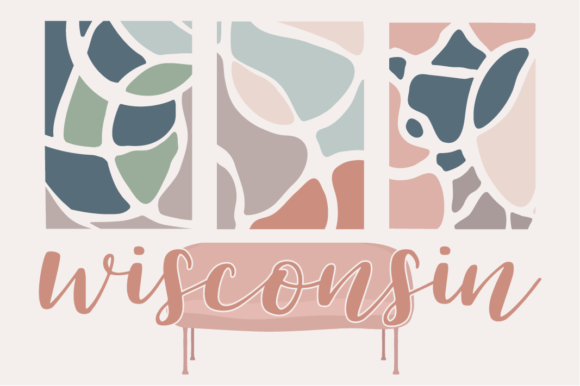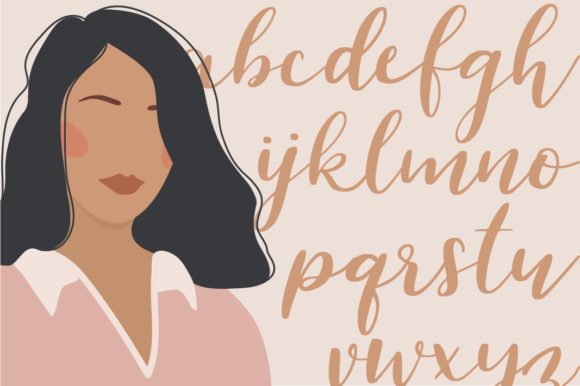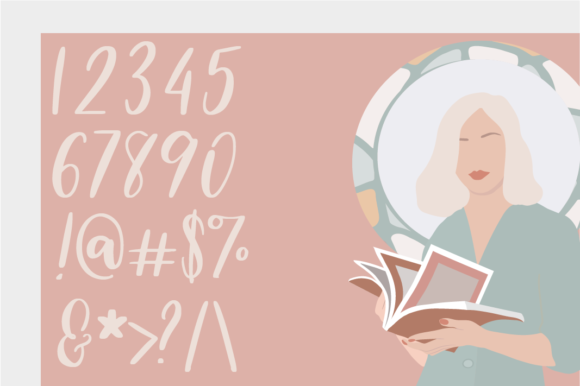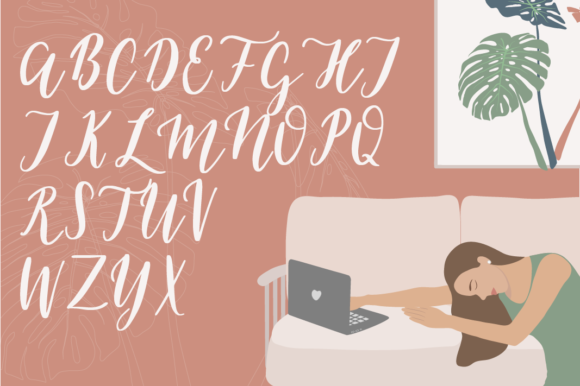
Introduction to Naturelle Font
Have you ever been brainstorming for your next creative project, pouring over ideas and struggling to find the perfect font to bring it all together? You know the moment when everything clicks – the words flow effortlessly, and your design begins to take shape. For me, that moment often starts with a single, elegant letter.
Enter the Naturelle Font, a lovely script font that’s as charming as it is versatile. With its playful characters dancing along the baseline, this font is sure to elevate your creative projects and make them stand out. Whether you’re working on a personal or professional design, the Naturelle Font is an invaluable resource that will help you achieve your vision.
Key Features of Naturelle Font
- High-quality, elegant script font suitable for creative projects and design resources.
- Comes with a transparent background, allowing for easy customization and blending with any design.
- Available in a range of sizes and resolutions, making it suitable for use in various design contexts.
- Unique, handwritten style that adds a touch of elegance and sophistication to any design project.
- Perfect for use in creative projects such as invitations, logos, and other design elements that require a high level of customization.
Honest Review: Naturelle Font
I recently stumbled upon the Naturelle Font while searching for a design resource to enhance my creative project. I was immediately drawn to its elegant and sophisticated look, making it perfect for a wide range of applications.
Here are some of the things that work well with the Naturelle Font:
- ✨ High-quality design that exudes sophistication and elegance
- ✨ Beautifully crafted letters that are perfect for headings and titles
- ✨ Can be used with a transparent background to add an extra layer of visual interest
- ⚠️ Limited character set, which may not be ideal for projects that require a wide range of languages
- ⚠️ Not as versatile as some other fonts, which may limit its use in certain creative projects
Overall, I’m impressed with the Naturelle Font. Its high-quality design and elegant look make it an excellent choice for designers looking to add a touch of sophistication to their creative project. While it may have some limitations, it’s a great design resource that’s definitely worth checking out.
Experiment with different font sizes and colors to create a unique design. Use the font in combination with other design resources to add depth and visual interest to your project.
Naturelle Font is suitable for a variety of creative projects, including business cards, brochures, and website headers. It’s also a great choice for design students and professionals looking for a high-quality and versatile font.
To use Naturelle Font in this project, add the font to your design software and create a clean and minimalist layout. Use a transparent background to make the font stand out and add some subtle texture to enhance the design.
Combine Naturelle Font with other design elements, such as simple icons and geometric shapes, to create a cohesive and modern design. To add some visual interest, use a bold font size and color to highlight important information.